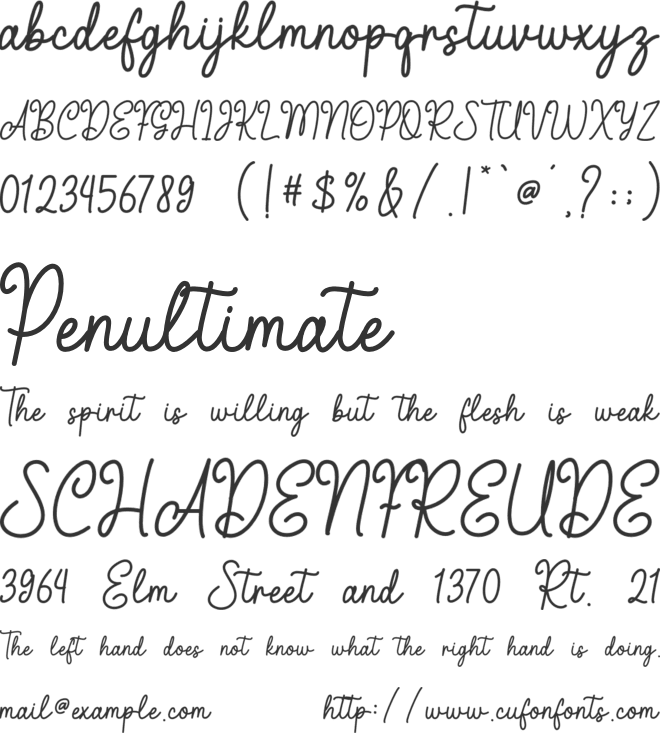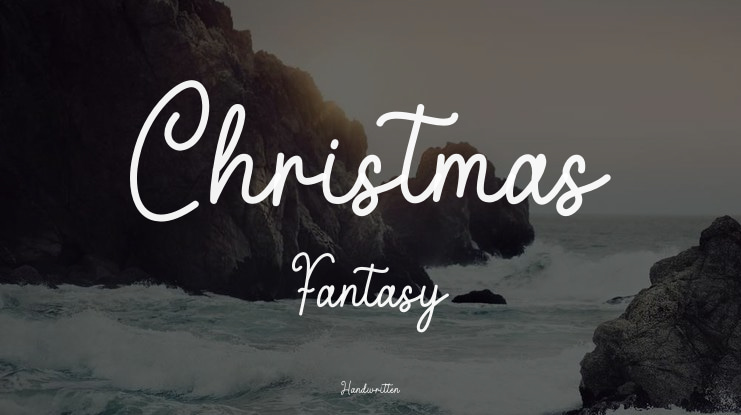
Christmas Fantasy Font
Christmas Fantasy is a warm and whimsical monoline script font designed to bring holiday magic to every project. Its smooth, flowing strokes and gentle handwritten style capture the cozy spirit of Christmas—perfect for greeting cards, gift tags, festive quotes, branding, stationery, and seasonal social media posts.